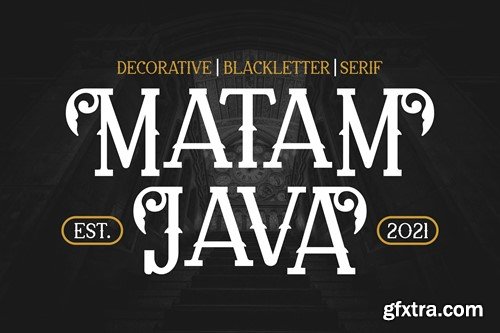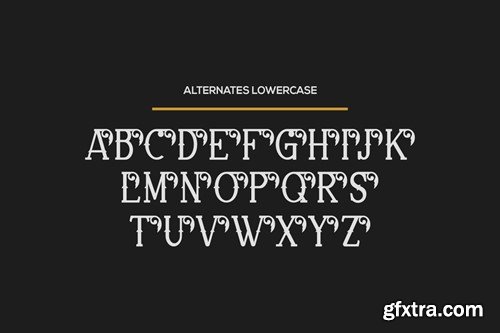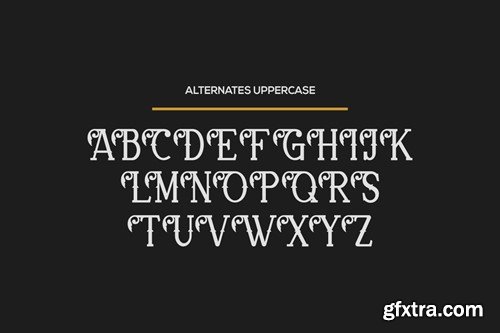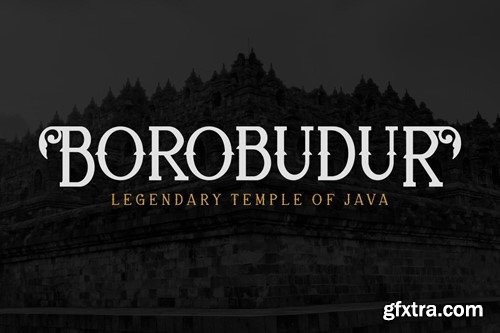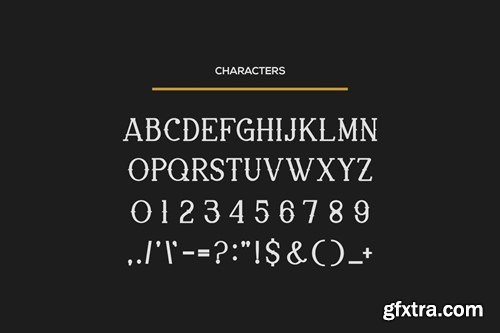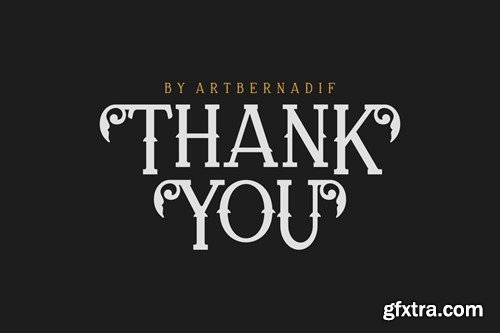
马特姆 Java - 美术装饰性和黑色字体 M7HVCR2
Matam Java - Serif Decorative and Balckletter Font M7HVCR2
Matam Java - Serif Decorative and Balckletter Font
Introducing our new product Matam Java Font Serif Decorative and Balckletter Font
Matam Java Font Modern Serif Decorative and Balckletter display font. The font is suitable for any branding project like logo, t-shirt printing, esport, and many more. outstanding in a wide range of contexts.
• Matam Java Uppercase
• Matam Java Alternative